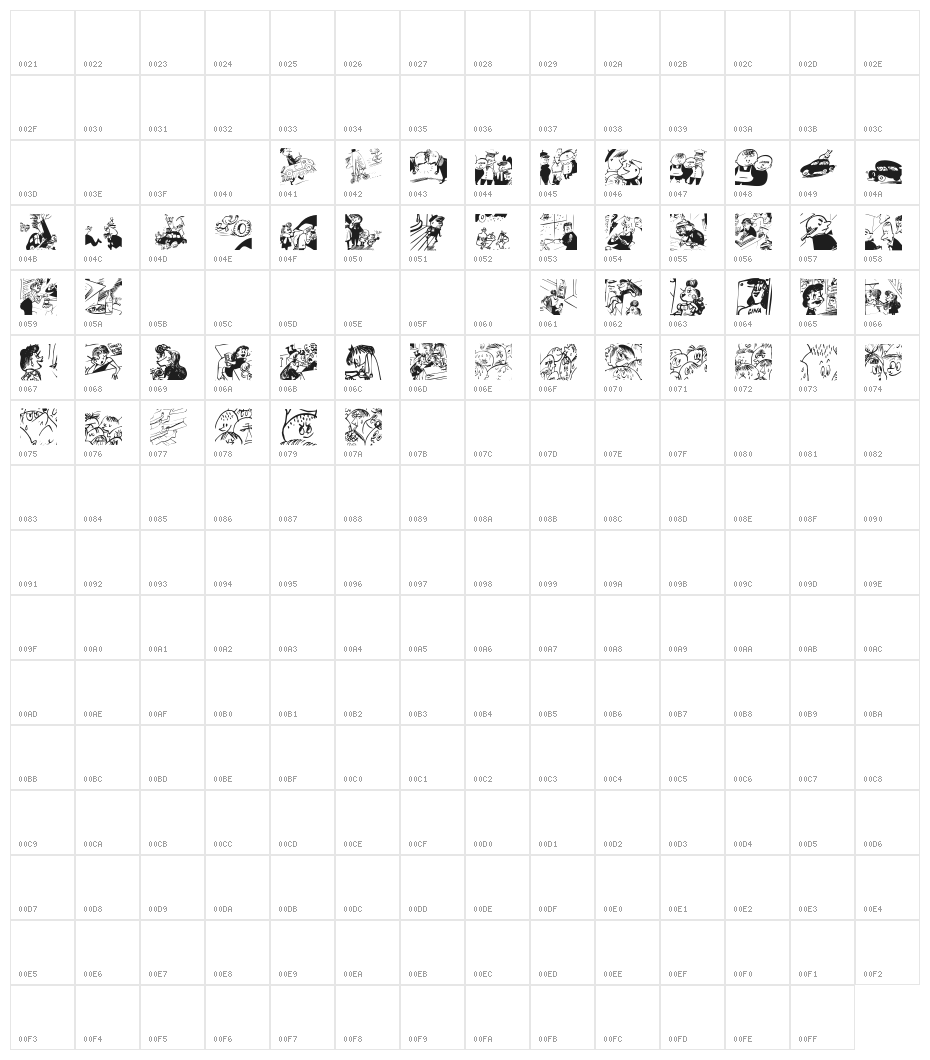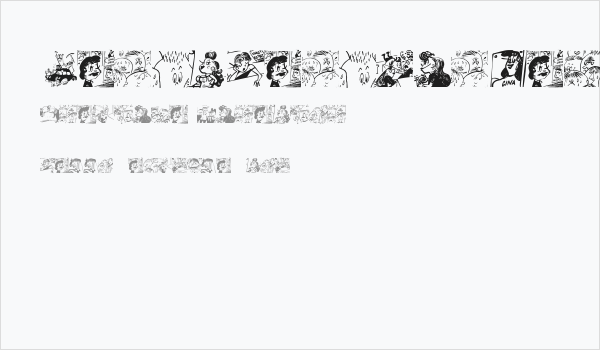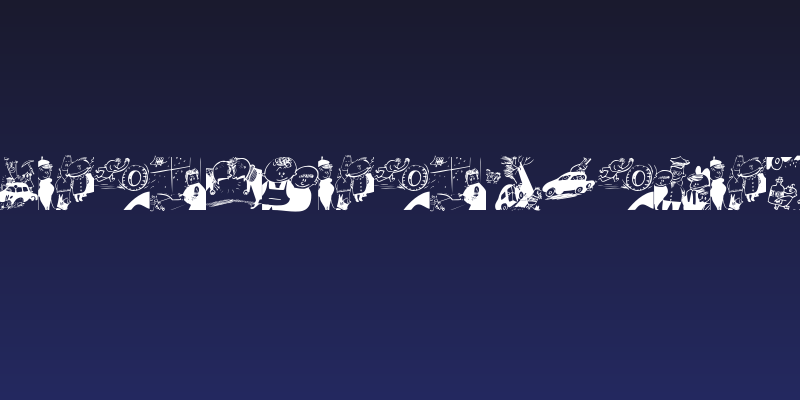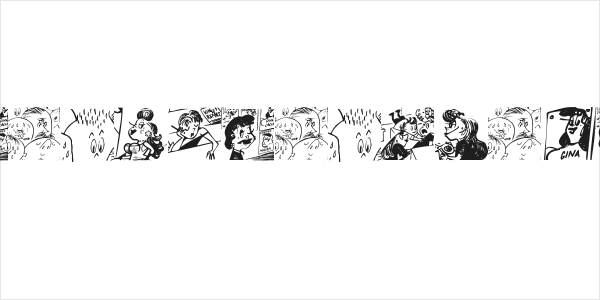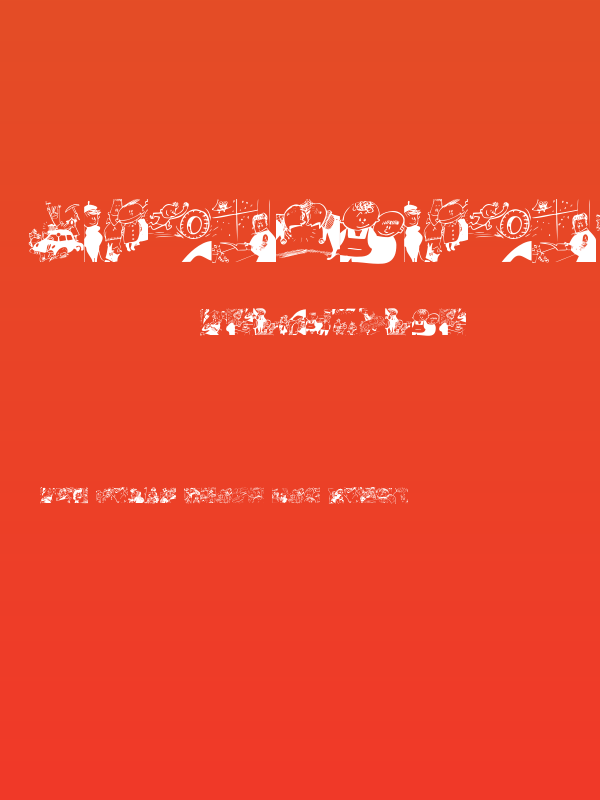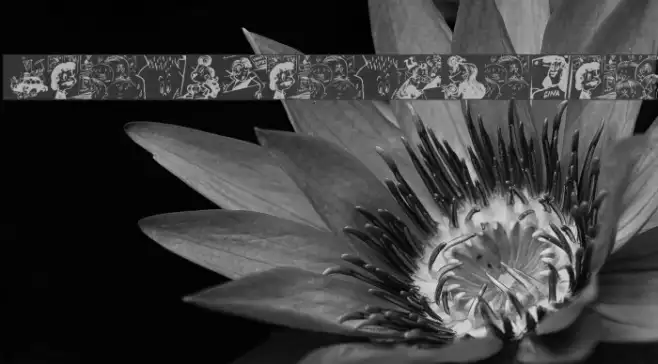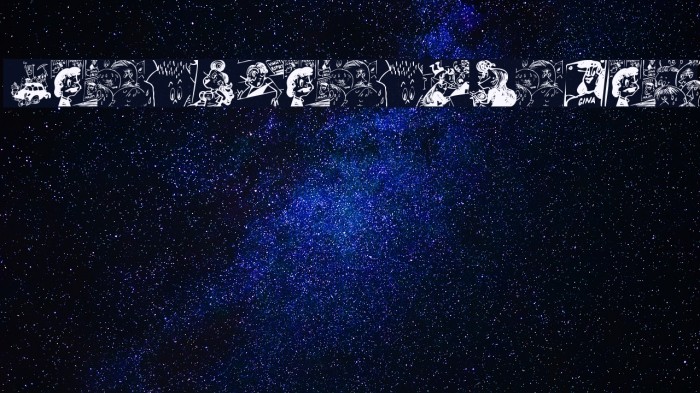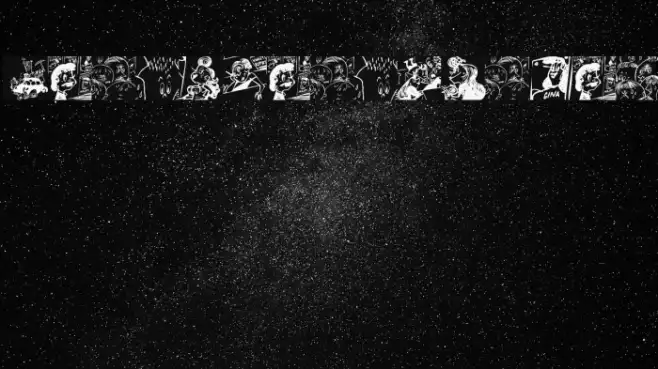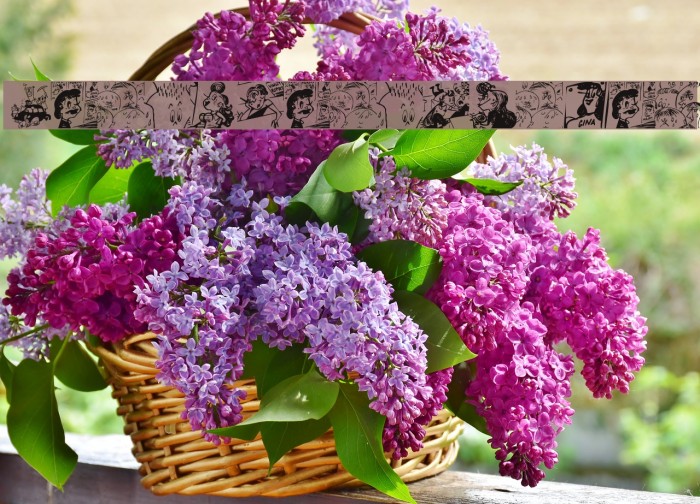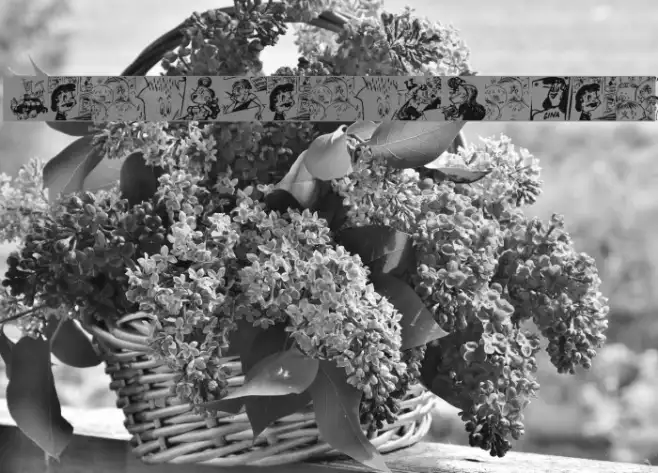
Menschenskinder Font
Menschenskinder Description
A highly decorative and illustrative font where each character is composed of detailed cartoon-style drawings, featuring various people and scenes. The glyphs are complex, playful, and visually dense, making each letter a miniature comic panel.
| Overall Style | Decorative, Playful, Comic |
| Use Case | Headlines, Posters, Logos, Themed graphics |
| Proposed Projects | Children’s books, comic covers, playful posters, event invitations, branding for entertainment or educational products. |